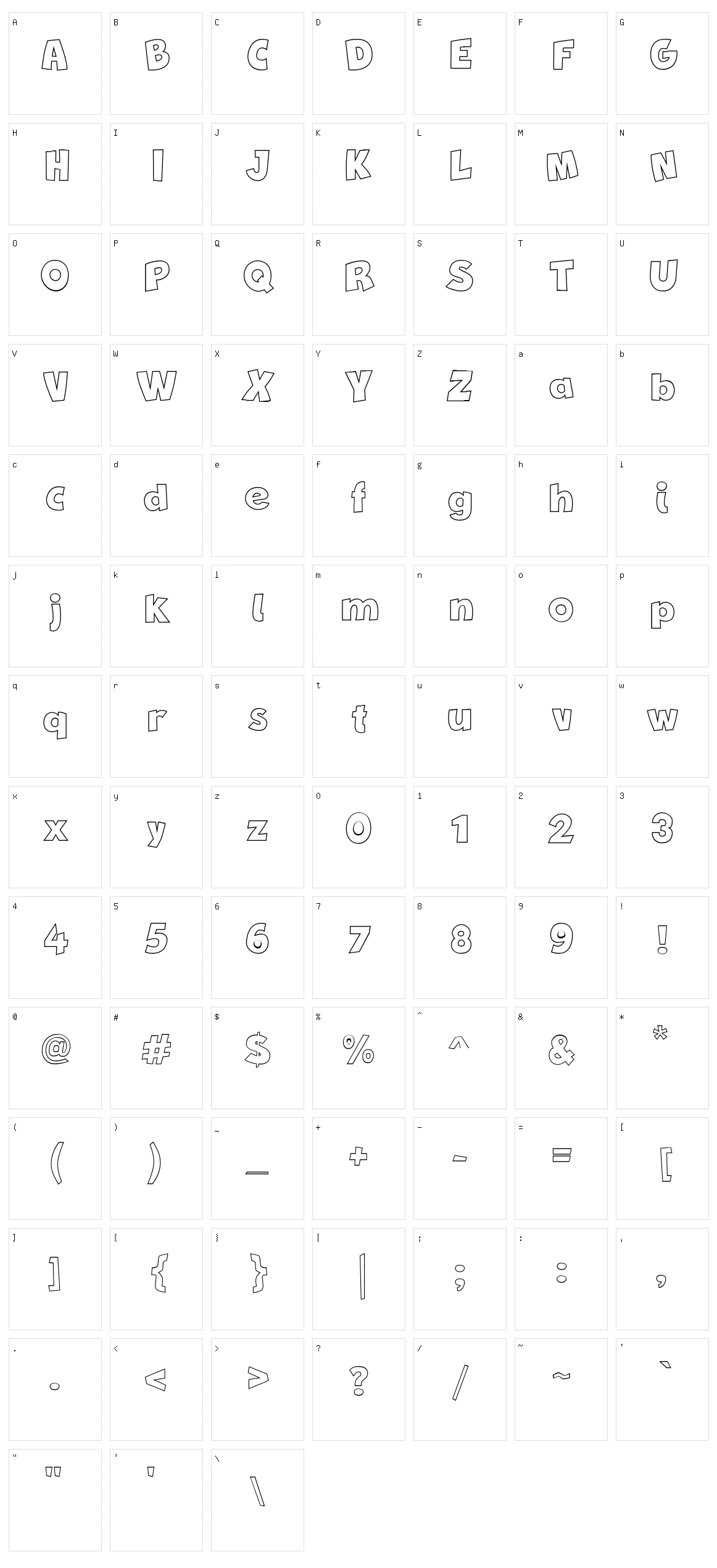
The free font New Comic BD is carefully designed by Galdino Otten Fonts, showcasing a thoughtful balance of creativity and usability and falls under the Cartoon font style. When you download the ZIP file, it contains only 604.06 KB of font files, making it lightweight and quick to download. Please review the license details below to understand permitted usage and distribution rights. If license information is not available, we recommend using this font for personal projects only or contacting the author directly for commercial usage permissions.